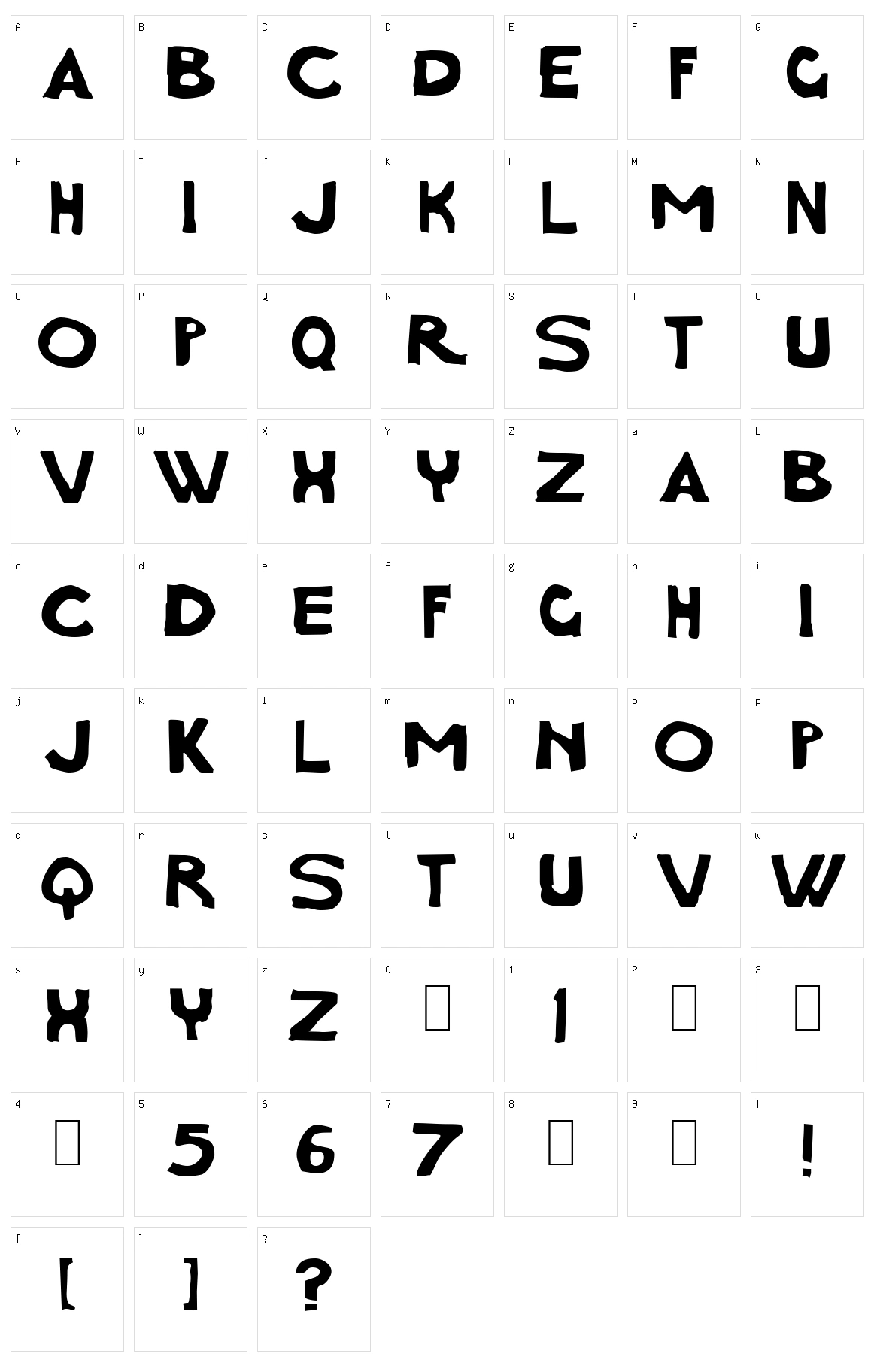
The free font Charcoal First is carefully designed by GregoryFonts, showcasing a thoughtful balance of creativity and usability and falls under the Eroded font style. When you download the ZIP file, it contains only 9.92 KB of font files, making it lightweight and quick to download. Please review the license details below to understand permitted usage and distribution rights. If license information is not available, we recommend using this font for personal projects only or contacting the author directly for commercial usage permissions.
This is an ugly font from Gregfonts!